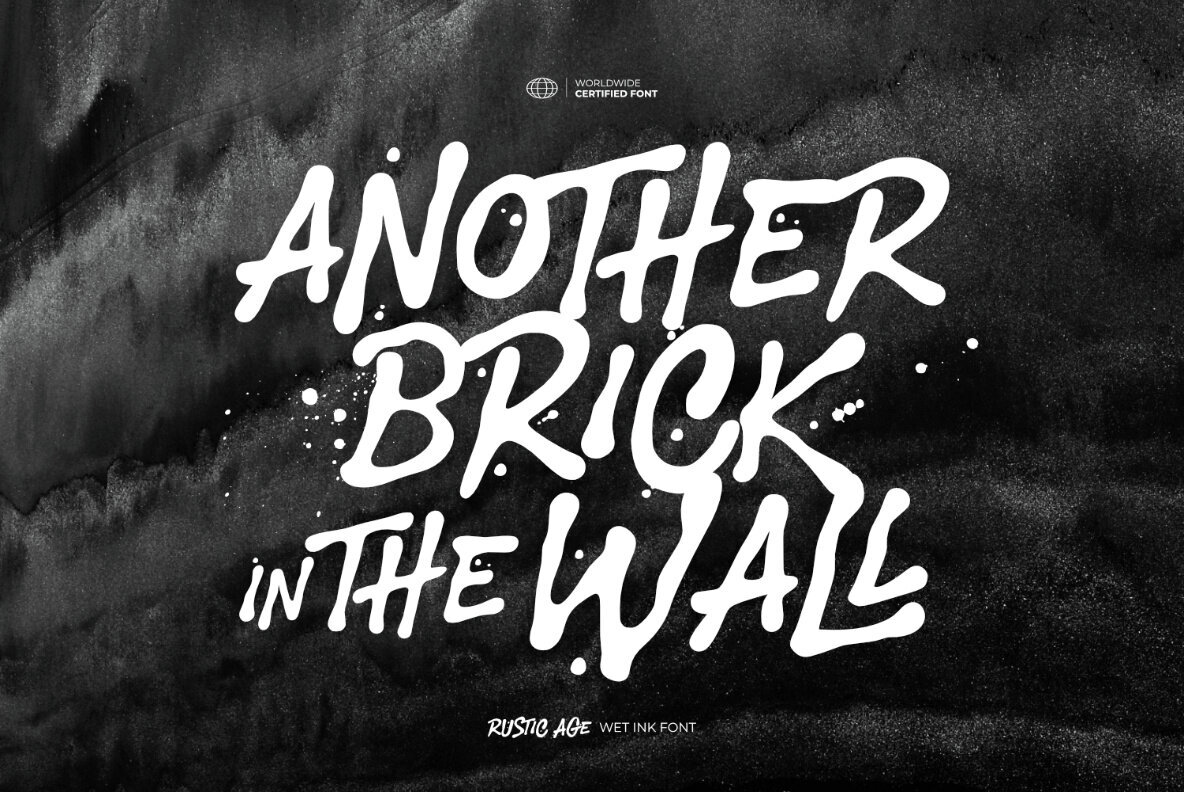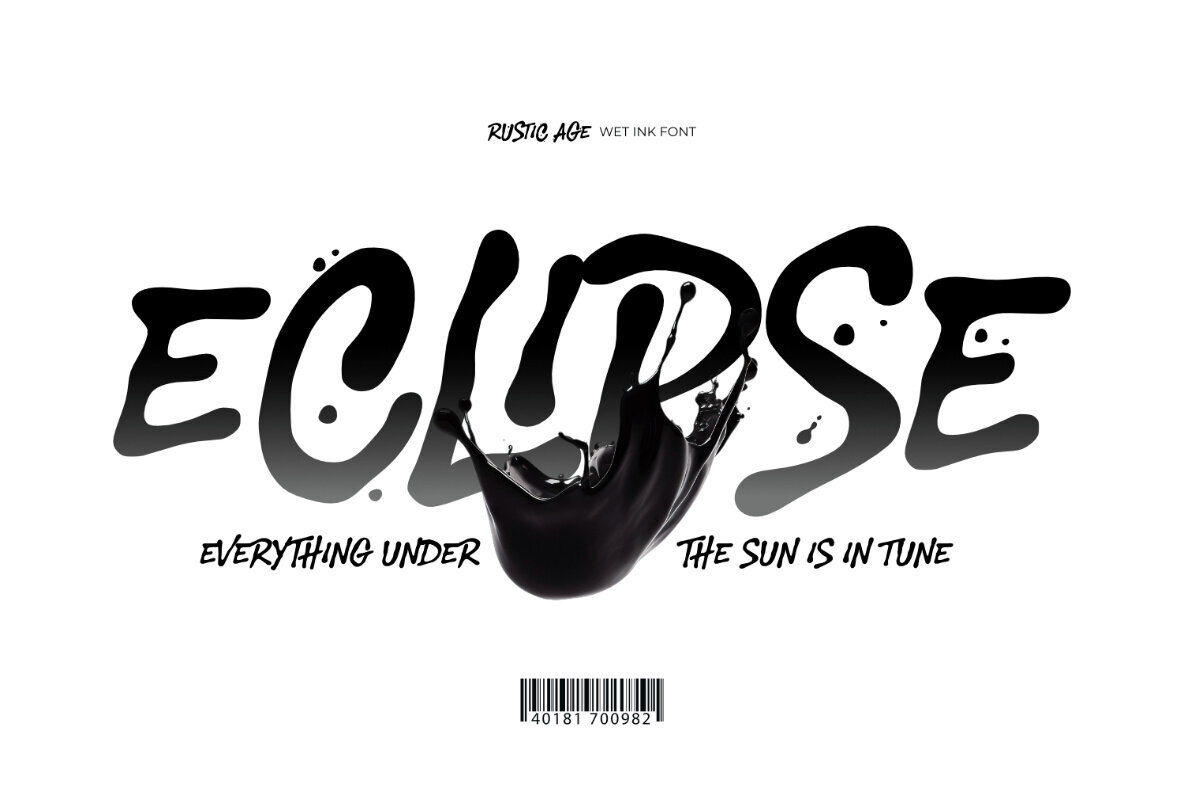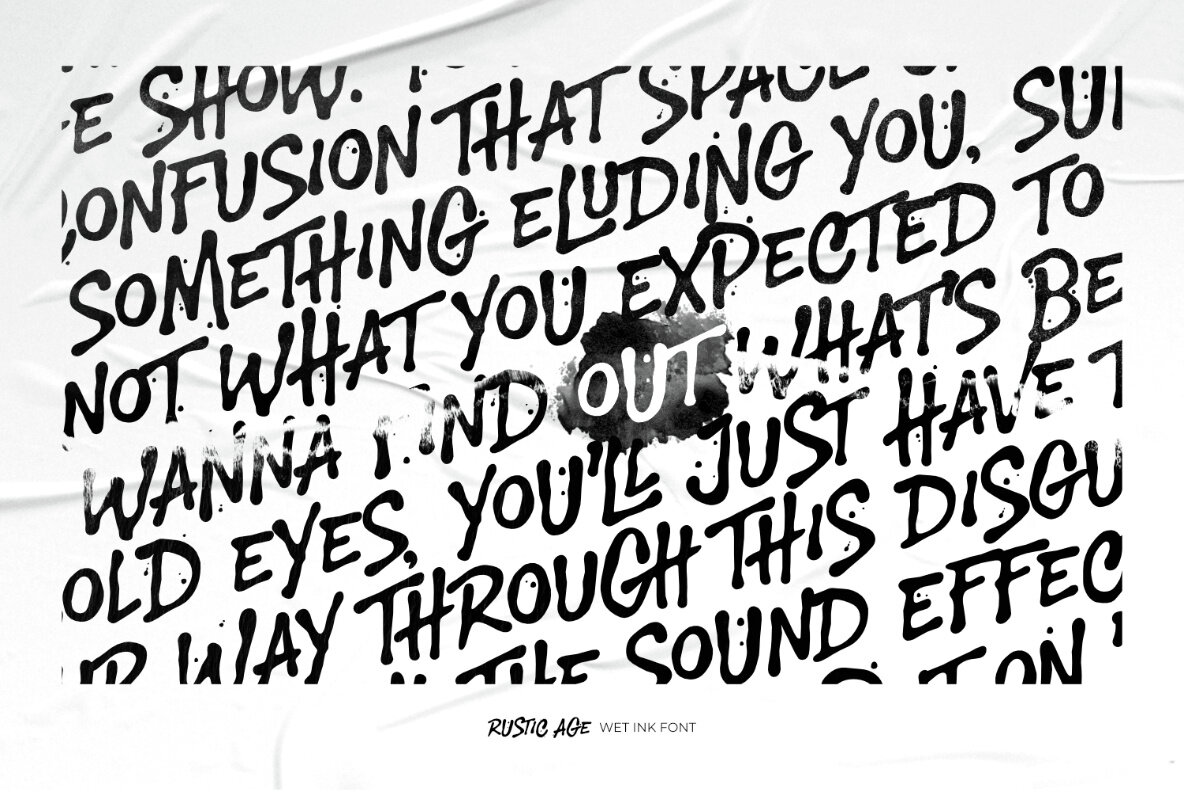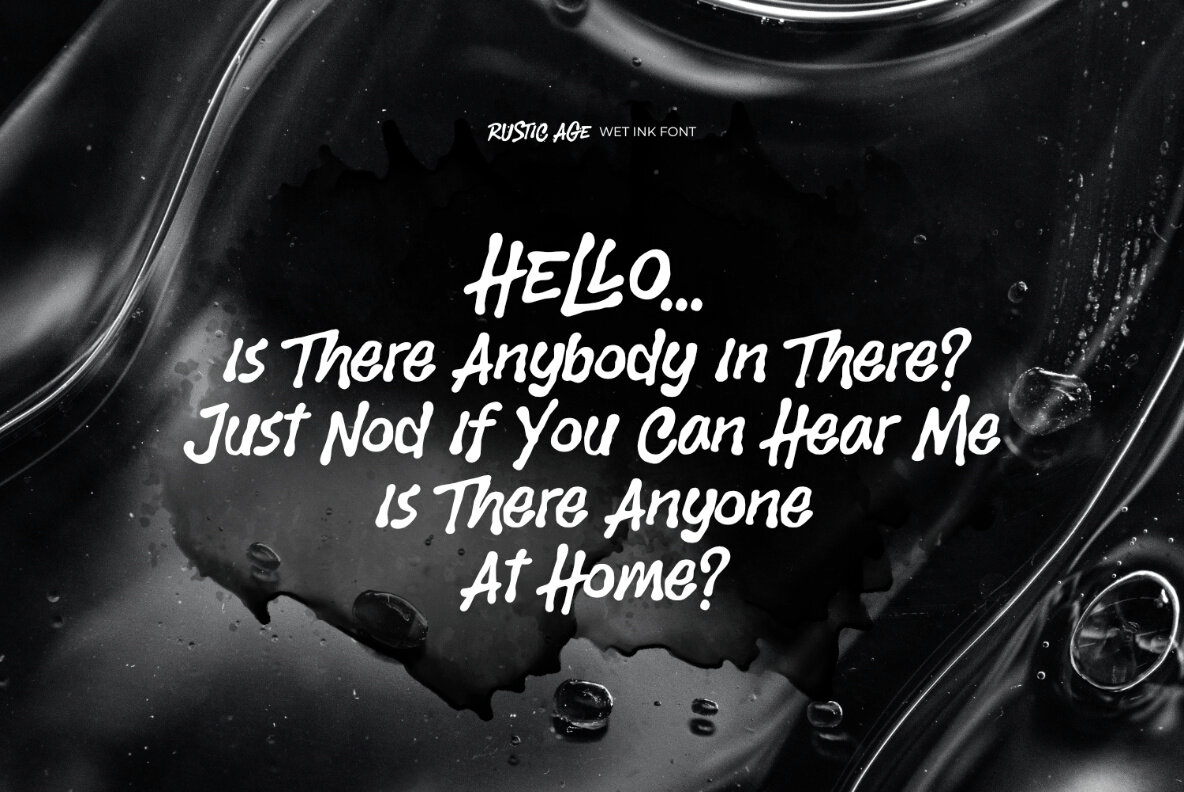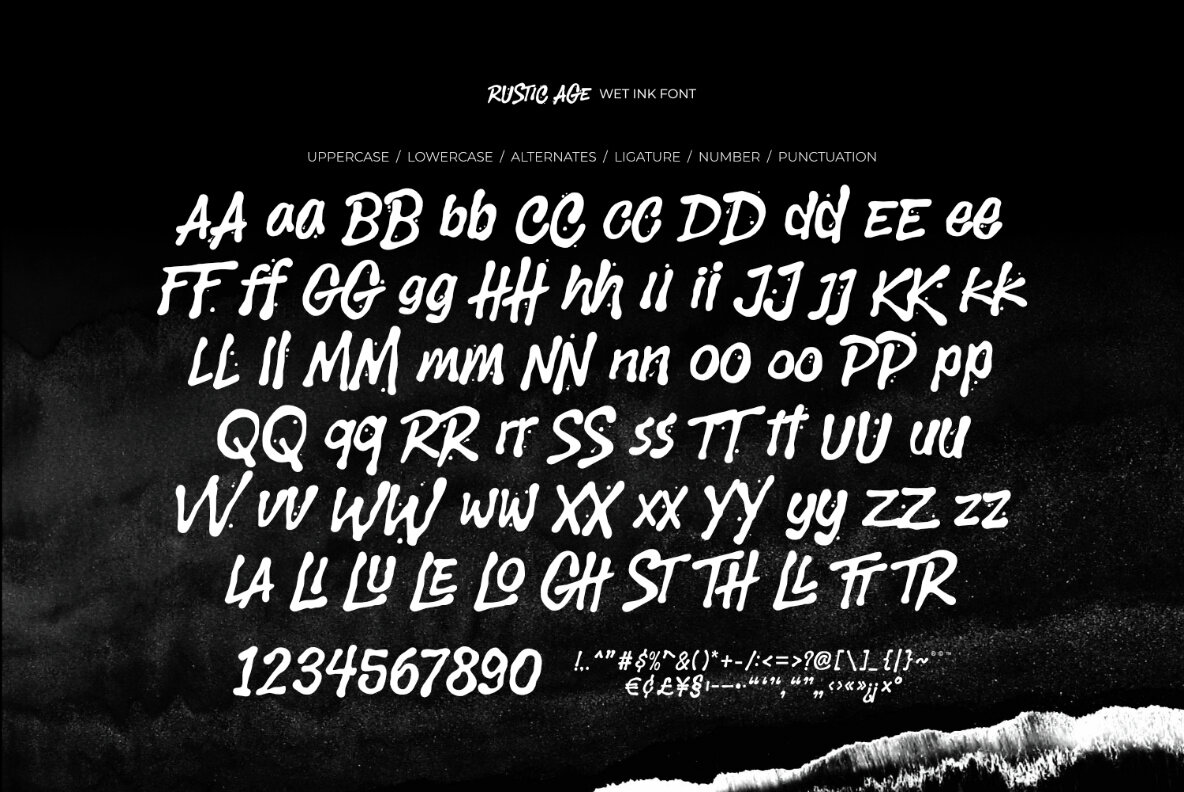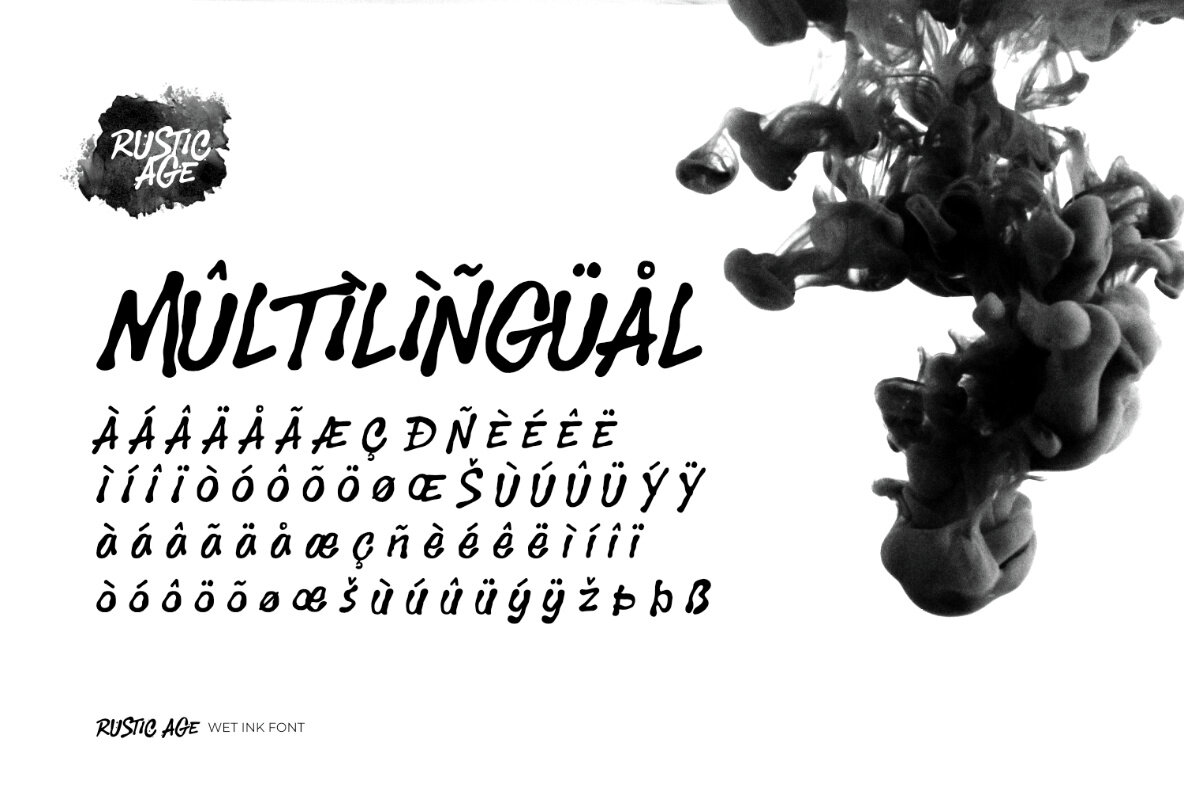
Rustic Age Font
Rustic Age
Rustic Age is an energetic wet ink font that captures the bold vibrancy of the 80s. Its design mimics the fluidity of liquid ink, creating a dynamic effect of black ink splashes dancing across the page. Ideal for projects that aim to command attention, this typeface excels in artistic and expressive applications. Rustic Age brings a unique blend of nostalgia and modernity to posters, branding, and creative displays, infusing each design with a lively, distinctive aesthetic.
Perfect for streetwear brands, posters, movie titles, magazine layouts, fashion designs, and quotes, Rustic Age also works beautifully as a stylish text overlay on any background image. It includes uppercase and lowercase letters, numbers, punctuation, alternates, and ligatures. Additionally, it supports multiple languages and is compatible with both PC and Mac.